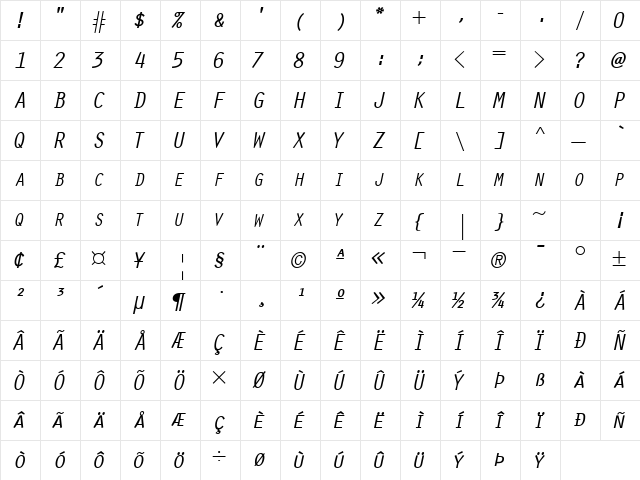
ScribeSCapsSSK Italic
Design Context for ScribeSCapsSSK Typeface
ScribeSCapsSSK offers clean, dependable letterforms without strong stylistic allegiance, making it a practical choice for designers who need flexibility. The dynamic lean of this cut emphasises speed and emphasis in any layout.
Pro Tip: Use ScribeSCapsSSK for emphasis, pull quotes, and subheadings where its slanted energy can add rhythm to the layout.